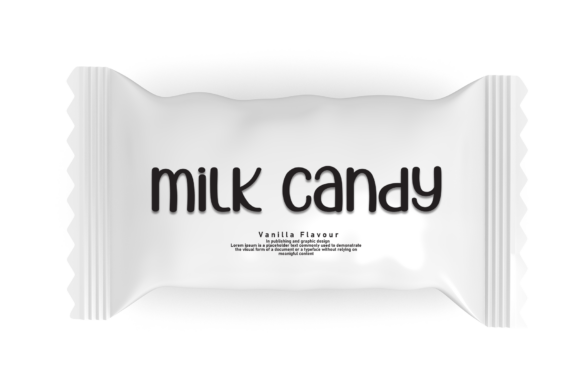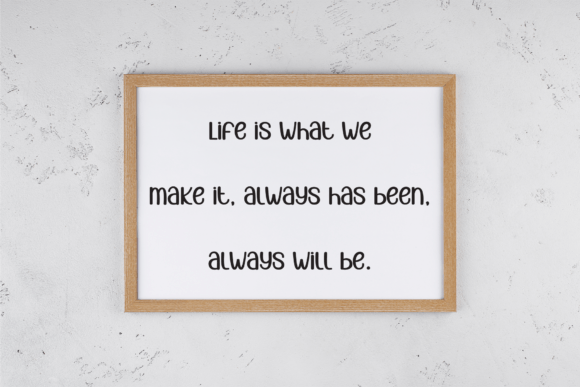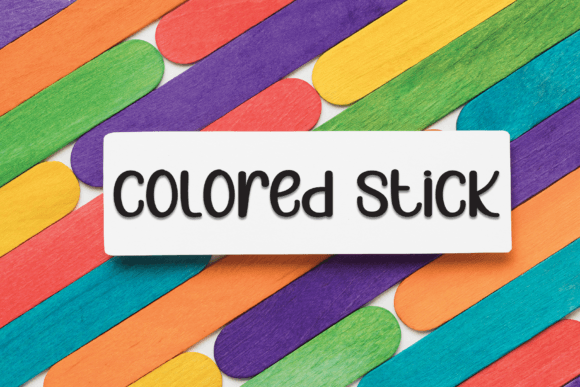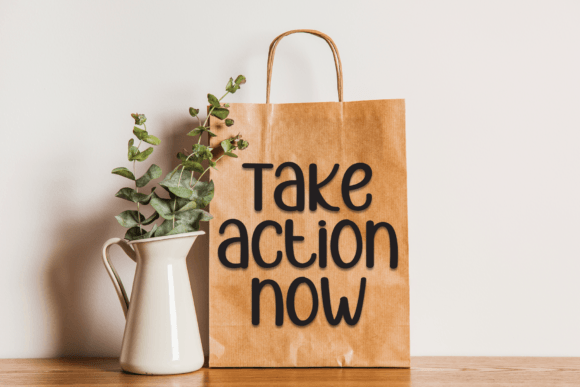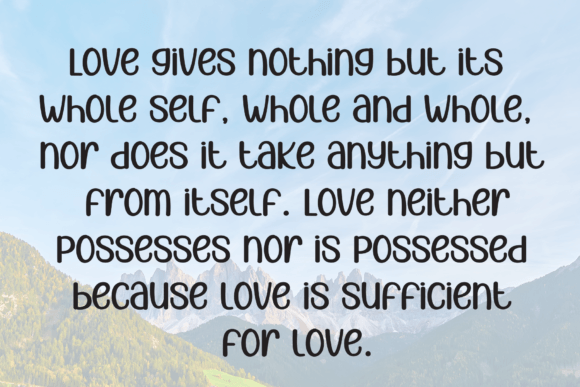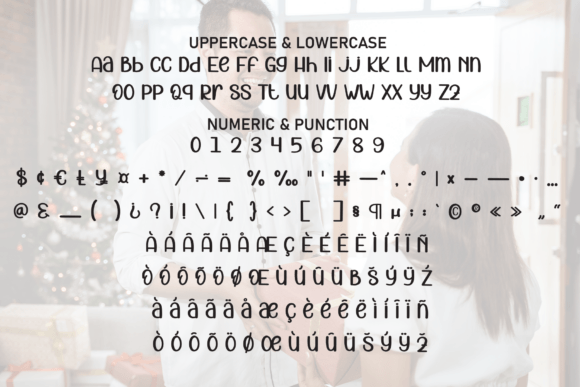
Introduction to Giving Present Font
As a designer, have you ever found yourself stuck in a creative rut, searching for that perfect font to elevate your project and make it truly special? You know, that moment when you stumble upon a font that instantly sparks joy and sets your imagination ablaze. For me, that moment happened when I discovered the Giving Present Font – a charmingly playful, handwritten display font that has become my go-to for adding a touch of whimsy to any design.
With its adorable and dynamic character, the Giving Present Font is perfect for personalizing wedding invitations, greeting cards, or any creative project that yearns for a sprinkle of delightful fun. And the best part? It’s a high-quality design resource that’s available for free download, complete with a transparent background, making it easy to integrate into your design style.
Key Features of Giving Present Font
- High-quality design: The Giving Present Font is a premium font designed to meet the needs of creative projects, offering a unique and stylish look.
- Transparent background: The Giving Present Font features a transparent background, allowing for seamless integration with any design or image.
- High-resolution design: The Giving Present Font is designed at a high resolution, making it suitable for use in a variety of applications, from print to digital media.
- Unique characteristics: The font features a distinctive and elegant design, making it perfect for use in creative projects, such as gift-giving, holiday-themed designs, and more.
Honest Review: Giving Present Font
I recently came across the Giving Present Font, and I was excited to dive in and see what it had to offer. As a designer, I’m always on the lookout for high-quality fonts to add some extra flair to my creative projects. The Giving Present Font did not disappoint.
One of the things that stood out to me about this font was its transparent background. This makes it incredibly versatile and easy to use in a variety of different design contexts. I was able to download the font for free, which was a major bonus.
Here are some of the things that work well about the Giving Present Font: ✨
- High-quality design: The font is crisp and clean, making it perfect for use in a wide range of creative projects.
- Transparency: The transparent background makes it easy to use in a variety of different design contexts.
That being said, there are a few limitations to the Giving Present Font that I did encounter: ⚠️
- Limited character set: The font only includes a limited number of characters, which may be a problem for some designers.
- No bold or italic options: While the font is available in a range of different weights, there are no bold or italic options available.
Overall, I was really impressed with the Giving Present Font. While it may have a few limitations, it’s a high-quality design resource that’s perfect for adding a touch of creativity to your projects. I would definitely recommend it to other designers looking for a free download with a transparent background.
Giving Present Font
The Giving Present Font is a free download available for creative projects. This high-quality design resource features a transparent background, making it easy to incorporate into various designs.
Tips for Getting the Most Out of it
To get the most out of the Giving Present Font, try combining it with other design elements to create a visually appealing design.
The Giving Present Font is commonly used for:
- Christmas and holiday-themed designs.
- Gift-giving and present-related designs.
- Winter and festive-themed designs.
Q: Does the Giving Present Font have a transparent background?
Yes, the Giving Present Font comes with a transparent background, making it easy to overlay on images or use in creative compositions. This feature is especially useful for designers working on projects that require a high level of customization.